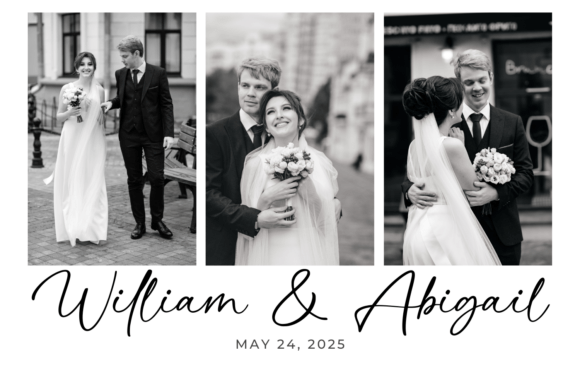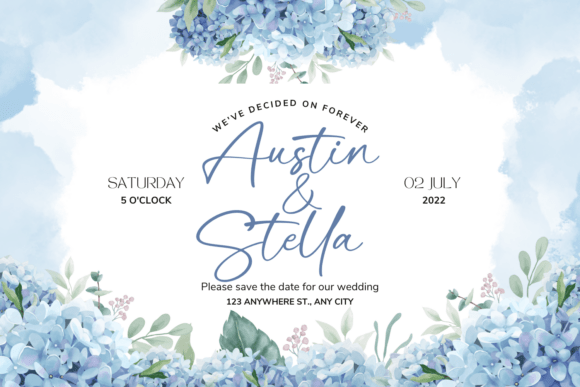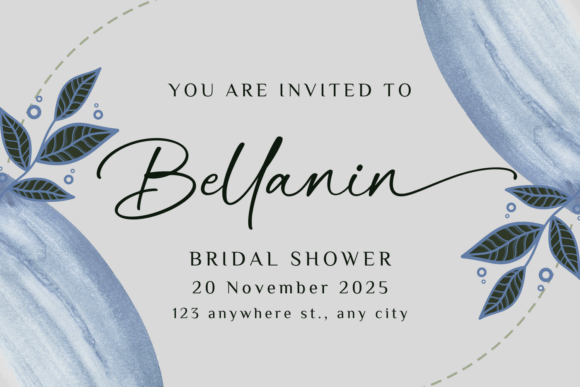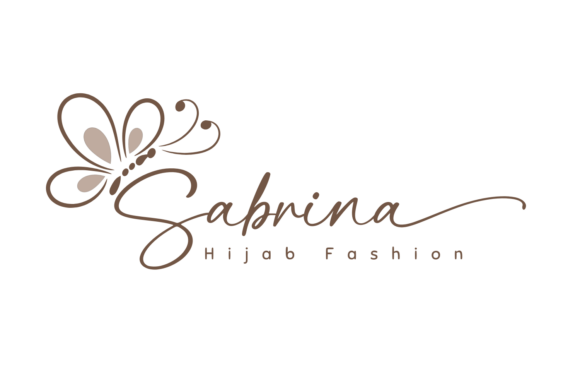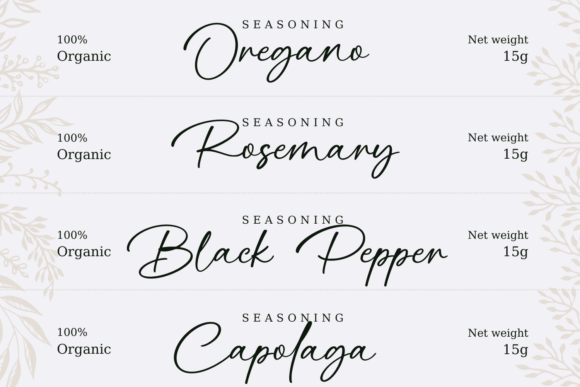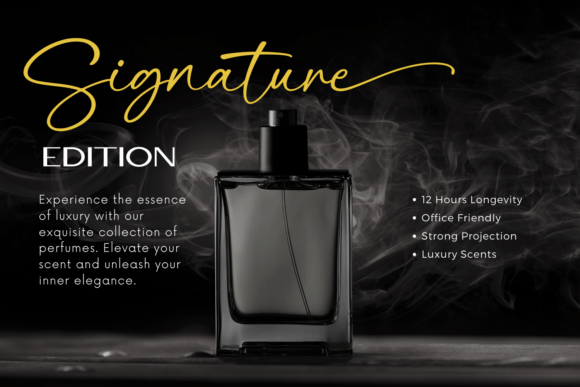
Introducing Handgone Font: The Perfect Handwritten Typeface for Your Creative Projects
Are you searching for a font that can add a touch of warmth, personality, and authenticity to your designs? Look no further than Handgone, a beautifully crafted handwritten typeface that’s perfect for bringing a natural, personal feel to your projects. Whether you’re working on branding, social media, invitations, packaging, or any other creative endeavor, Handgone is the ideal choice for designers and crafters looking to make a lasting impression.
The Story Behind Handgone
Handgone is more than just a font – it’s a reflection of the human touch that’s often missing in digital design. In an era where technology dominates every aspect of our lives, Handgone offers a refreshing alternative that’s both nostalgic and modern. This exquisite handwritten typeface is the brainchild of talented designers who sought to create a unique and versatile font that would resonate with creatives and audiences alike.
What Makes Handgone Special?
So, what sets Handgone apart from other fonts? Here are just a few reasons why this stunning typeface has captured the hearts of designers and crafters worldwide:
- Warmth and Personality: Handgone exudes a sense of warmth and personality that’s hard to find in digital fonts. Its handwritten charm makes it perfect for projects that require a personal touch.
- Authenticity: Unlike generic fonts that lack character, Handgone is authentic and genuine. Its unique strokes and imperfections make it feel like it was written by hand.
- Versatility: Handgone is incredibly versatile, making it suitable for a wide range of projects, from formal invitations to social media graphics.
- Ease of Use: This beautifully crafted font is easy to use and pairs well with a variety of other typefaces, making it perfect for designers of all levels.
Handgone is an incredibly versatile font that’s suitable for a wide range of creative projects, including:
- Branding: Use Handgone to create a unique and memorable brand identity that stands out from the crowd.
- Social Media: Add a personal touch to your social media graphics, posts, and stories with this beautiful handwritten typeface.
- Invitations: Make your invitations, wedding cards, and other formal correspondence truly special with Handgone’s elegant and sophisticated feel.
- Packaging: Use Handgone to create eye-catching packaging that reflects your brand’s personality and style.
Tips for Using Handgone Effectively
To get the most out of Handgone, here are a few tips to keep in mind:
- Pair it with Other Fonts: Experiment with pairing Handgone with other fonts to create a unique and visually appealing combination.
- Play with Size and Color: Don’t be afraid to experiment with different sizes and colors to add depth and interest to your designs.
- Use it to Add Emphasis: Use Handgone to add emphasis to key messages or to draw attention to specific design elements.
If you’re looking for a font that brings warmth, personality, and authenticity to your projects, look no further than Handgone. This beautifully crafted handwritten typeface is the perfect choice for designers and crafters who want to add a natural, personal touch to their designs. With its versatility, ease of use, and stunning good looks, Handgone is sure to become a favorite in your design arsenal.